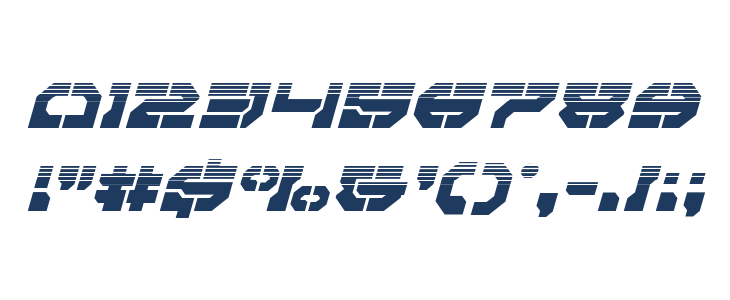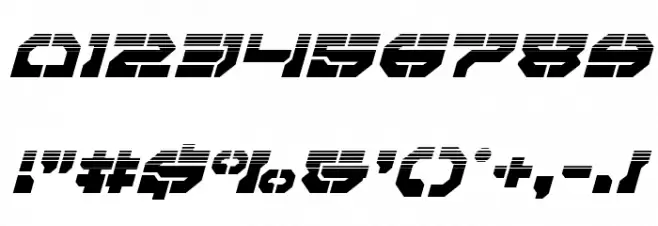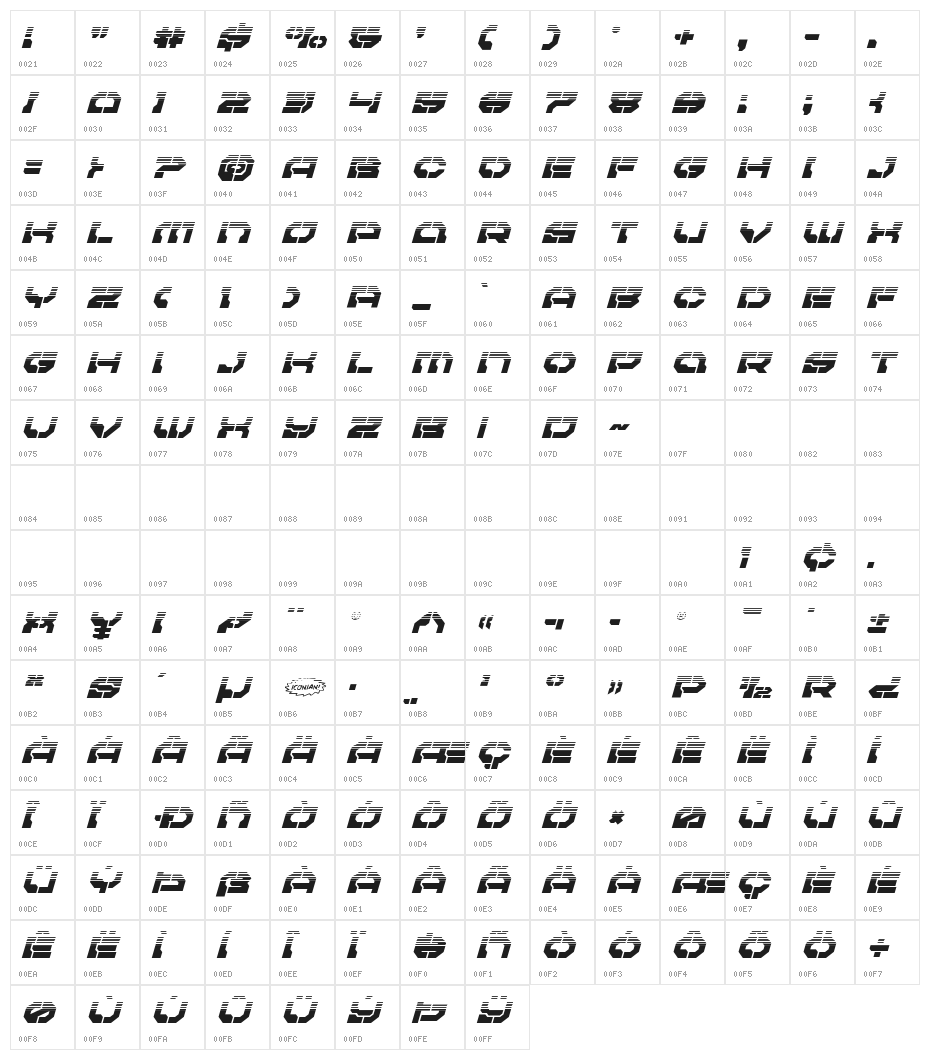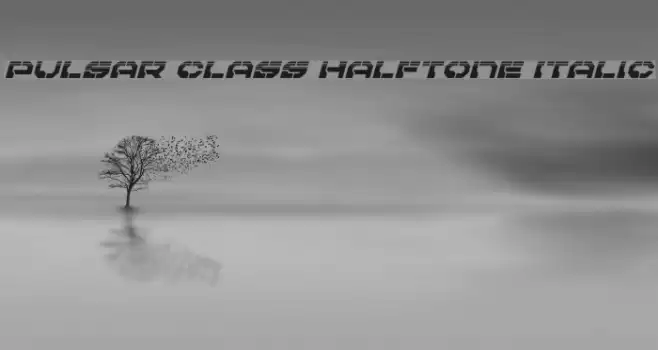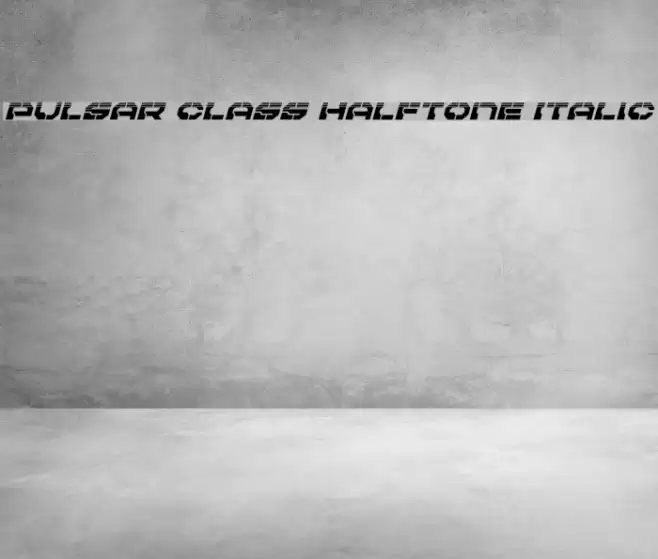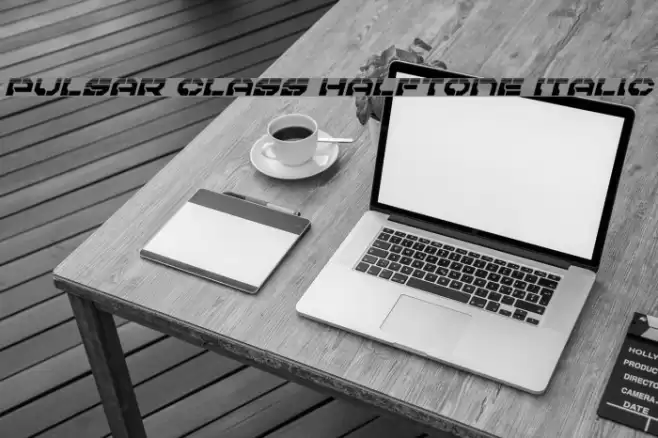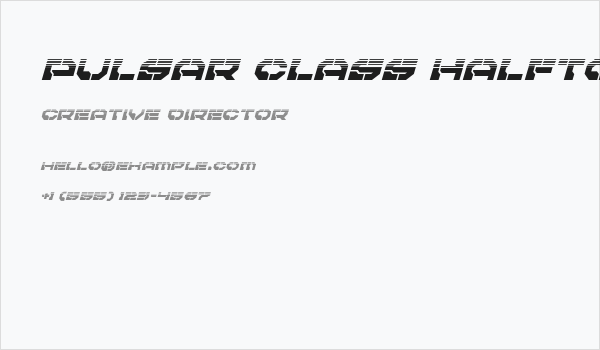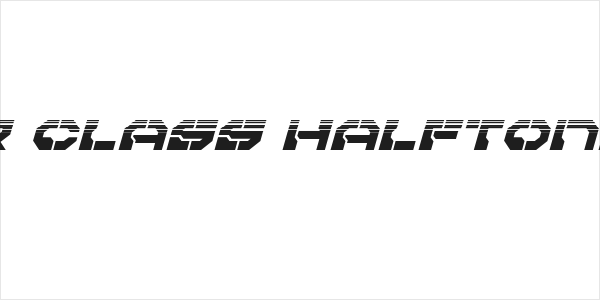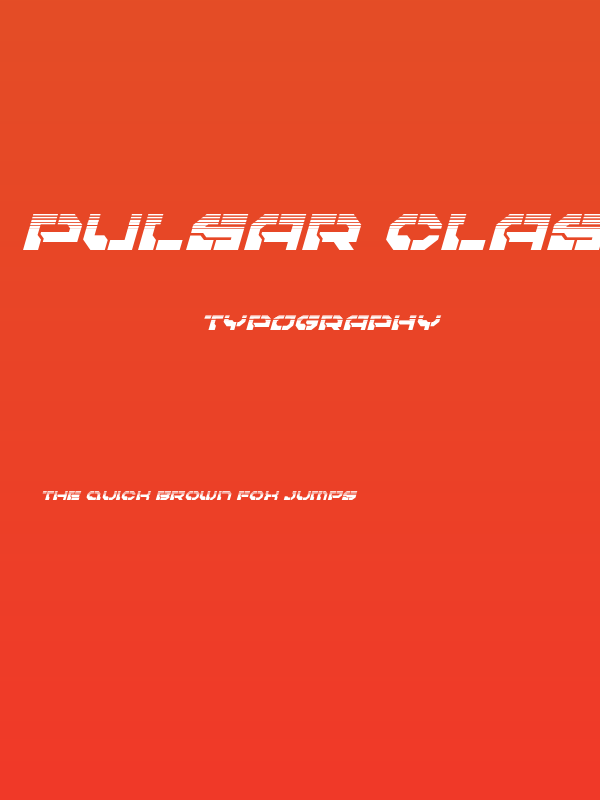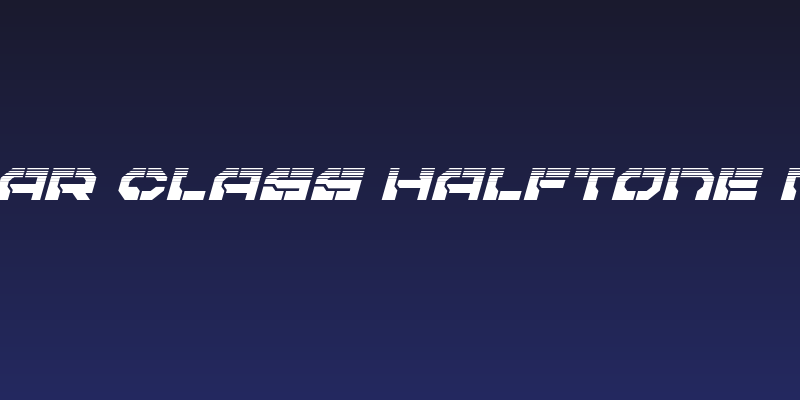
This font features a bold, futuristic design with a halftone effect that gives it a dynamic and energetic appearance. The characters are italicized, adding a sense of motion and speed. Each letter is constructed with a series of parallel lines that create a unique texture, reminiscent of digital or technological themes. The uppercase and lowercase letters maintain a consistent style, ensuring readability while still being visually striking. The numbers and special characters follow the same design principles, making them suitable for a variety of uses where a modern and edgy look is desired.
| Proposed Projects | Ideal for tech-themed posters, video game graphics, sci-fi book covers, and modern branding projects. |